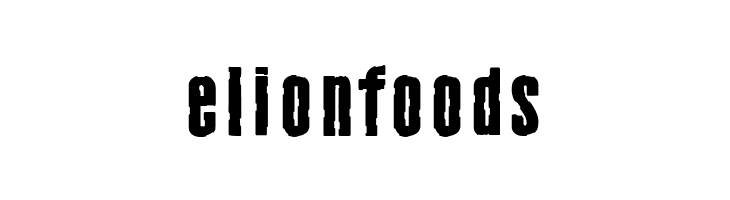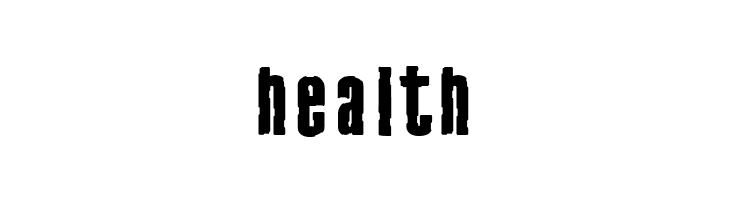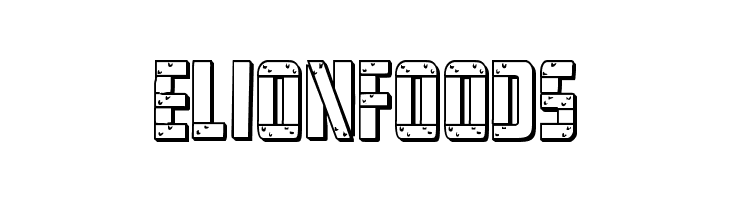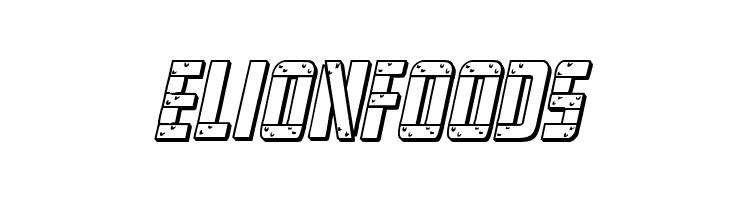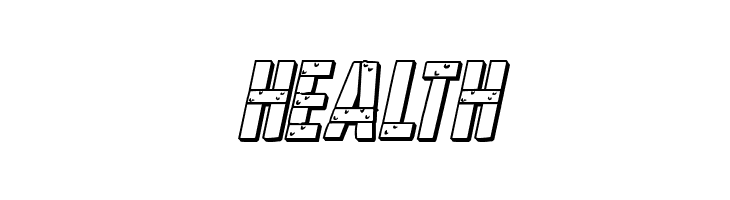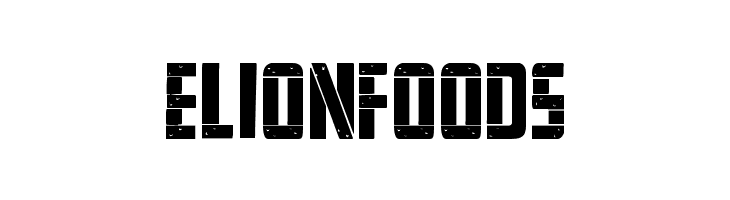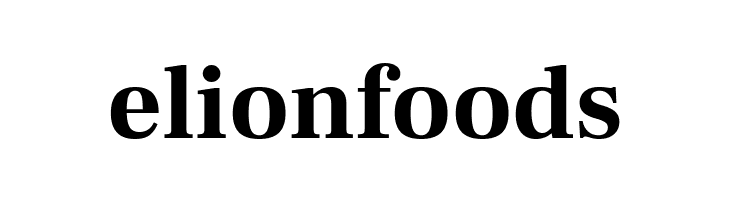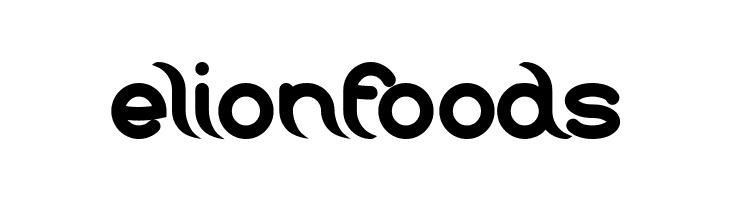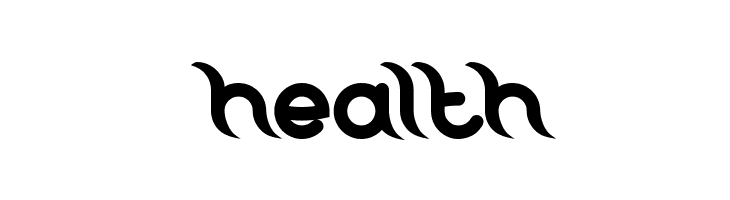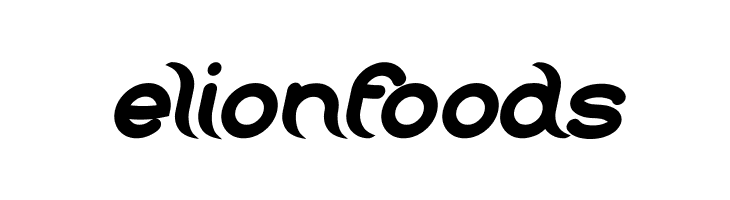
• FrancophilSans-Bold
A bold, modern sans-serif font with clean lines and uniform stroke width.
• Frank Ruhl Libre Bold
A bold, serif font with strong, authoritative letterforms and pronounced serifs.
• Frank-n-Plank 3D Bold
A bold, 3D decorative font with geometric shapes and textured details.
• Frank-n-Plank 3D Bold Italic
A bold, 3D, italicized font with a playful, decorative style and industrial texture.
• Frank-n-Plank Bold
A bold, industrial font with a distressed, vintage texture.
• Frank-n-Plank Bold Italic
A bold, italicized font with an industrial, mechanical design featuring rivet-like details.
• Frankenstainer Demo Font Bold
A bold, distressed font with a vintage industrial style.
• FRANKENSTEIN MONSTER Bold
A bold, gothic-inspired font with curvy, pointed characters.
• FRANKENSTEIN MONSTER Bold Italic
A bold, italicized font with a monstrous and playful design.
• Franko Bold
A bold, clean sans-serif typeface with geometric shapes and uniform strokes.